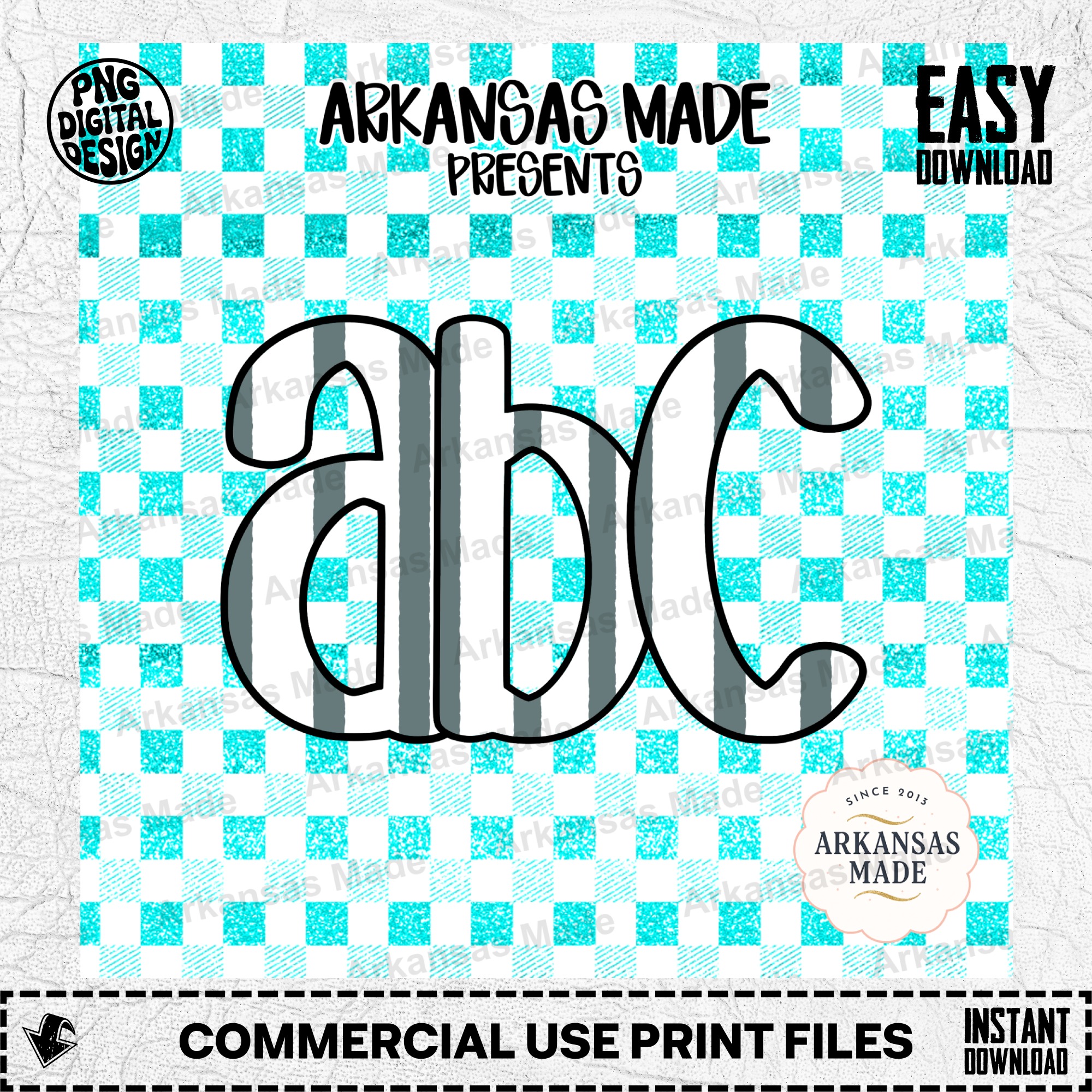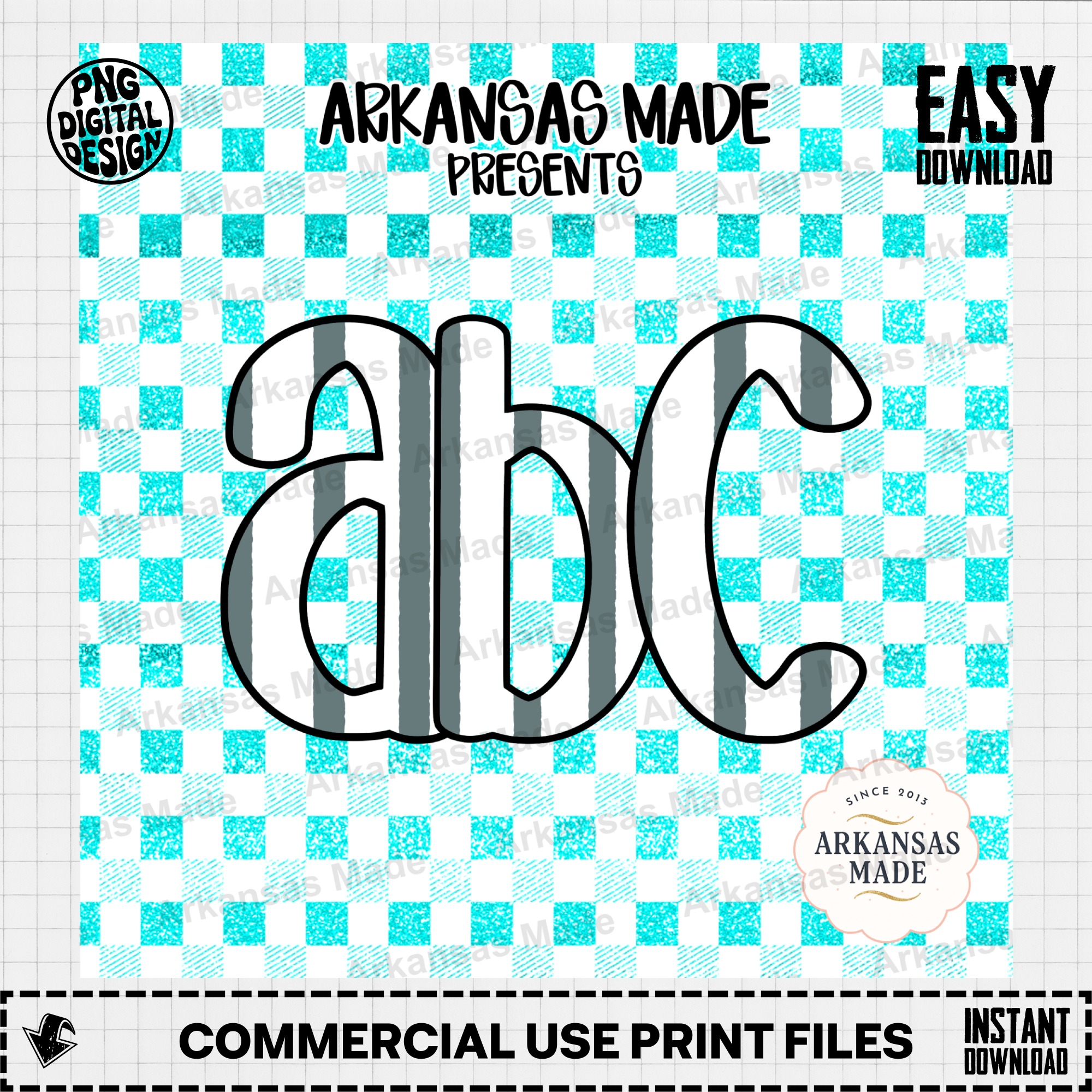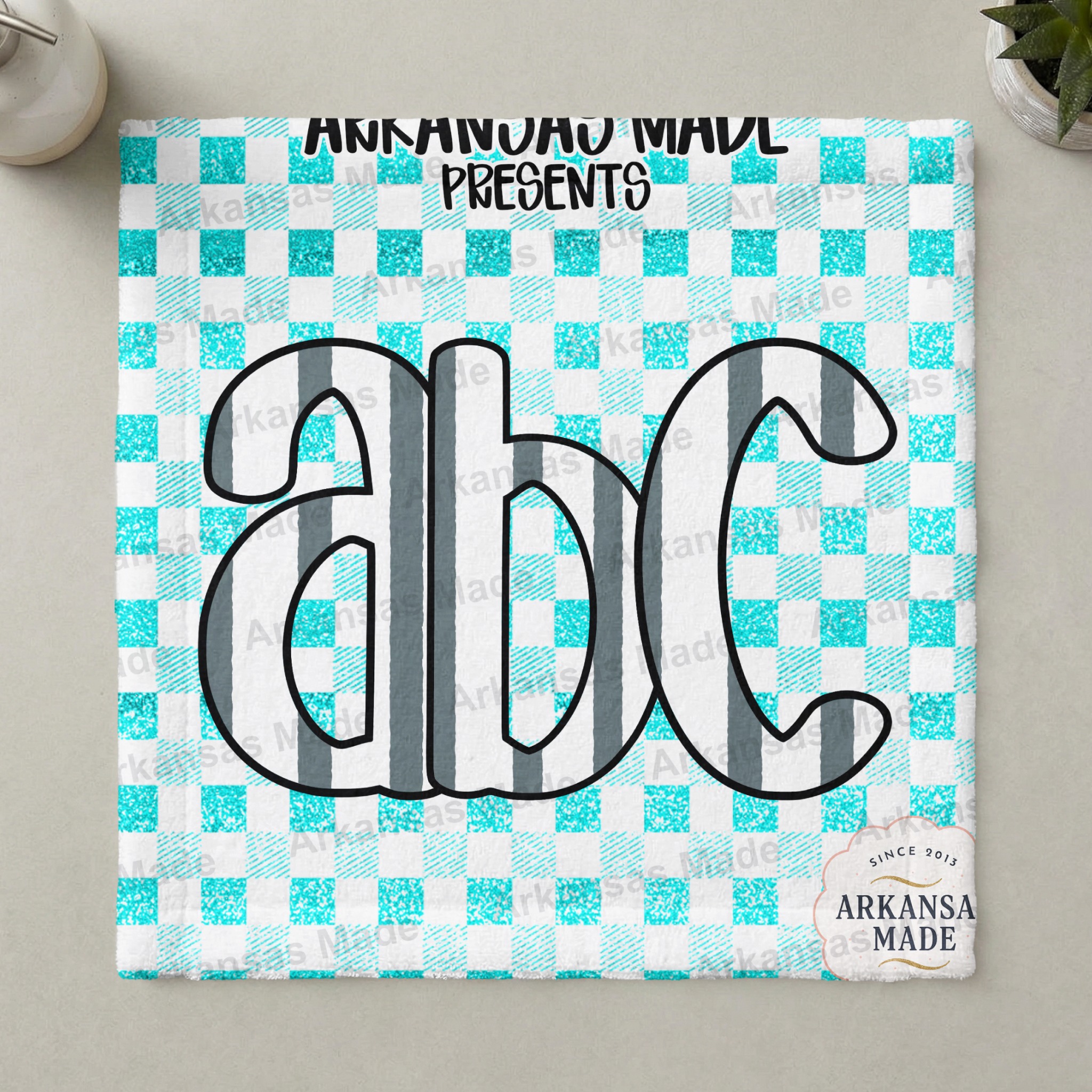
Get creative with this vibrant Teal Buffalo Plaid Digital Download Alpha Set! Features faux glitter and striped letters perfect for unique crafting projects. This eye-catching gingham alphabet PNG offers a bold, preppy aesthetic, ideal for crafters, small business owners, and DIY enthusiasts. Use these charming letters to personalize baby shower gifts, school supplies, nursery decor, or create stunning sublimation designs. An instant download for your next creative adventure!